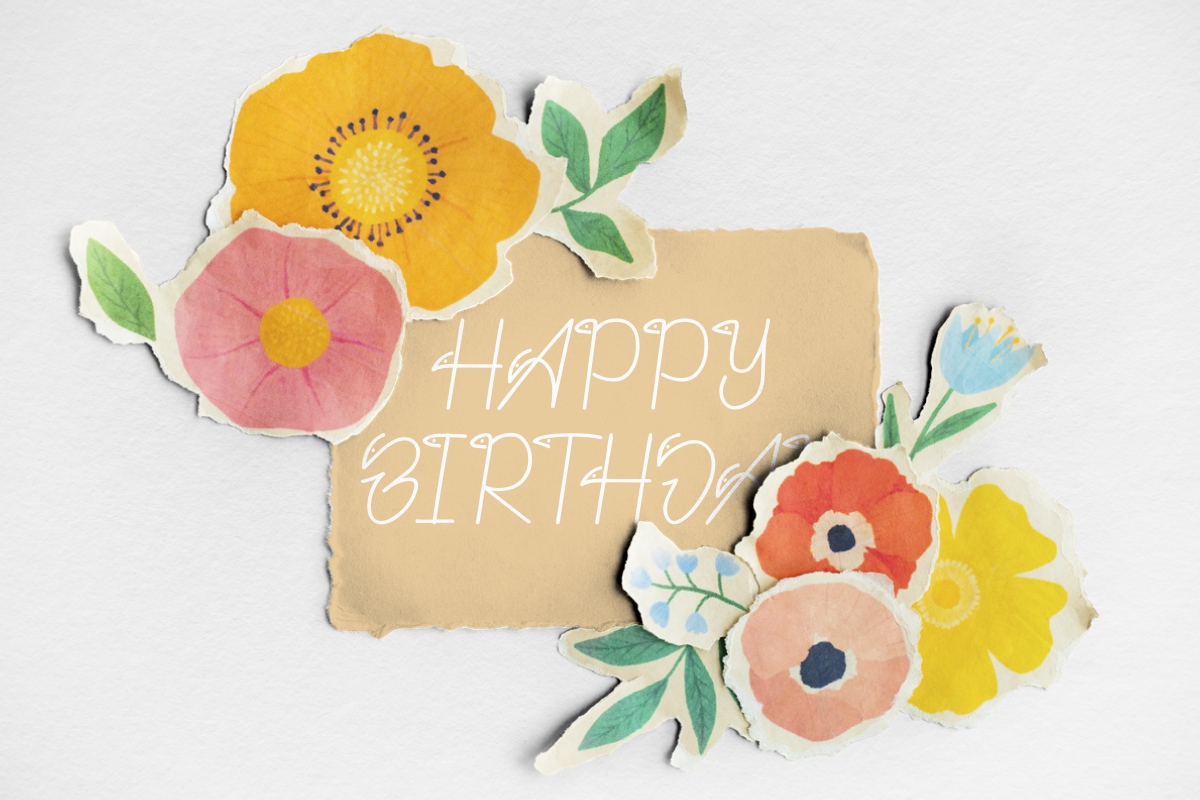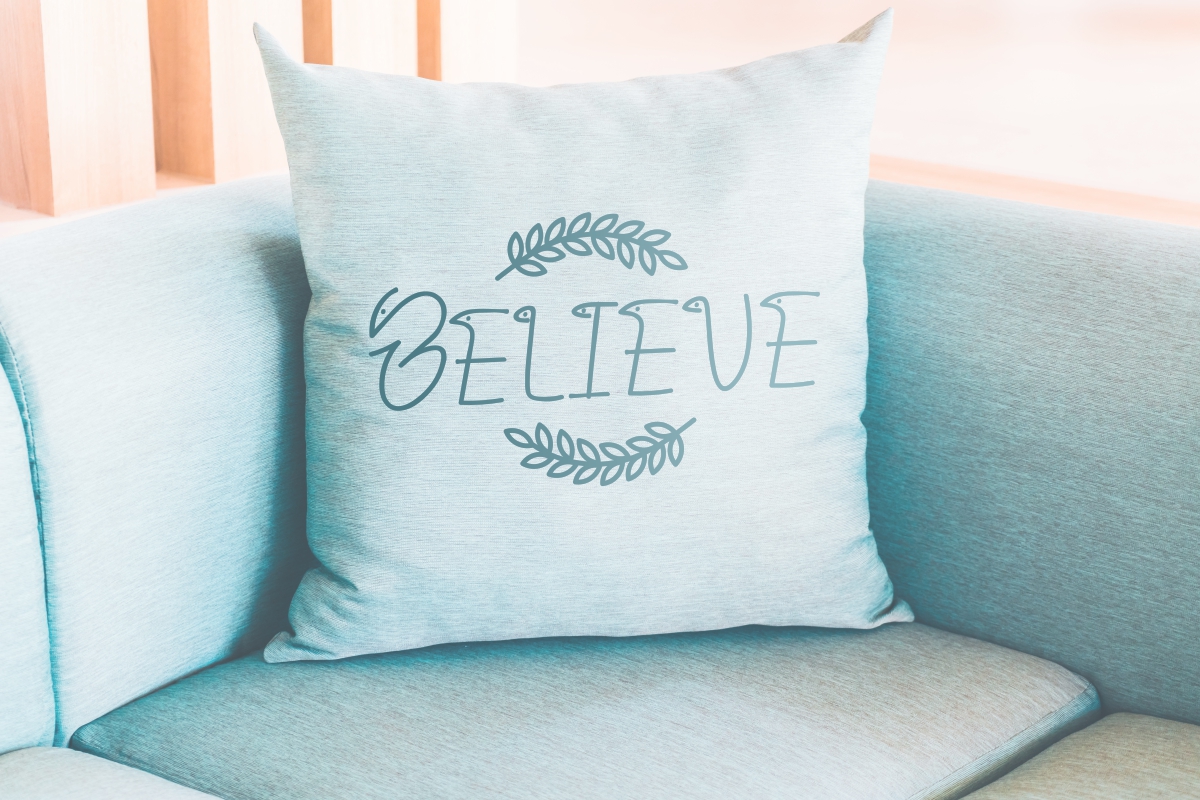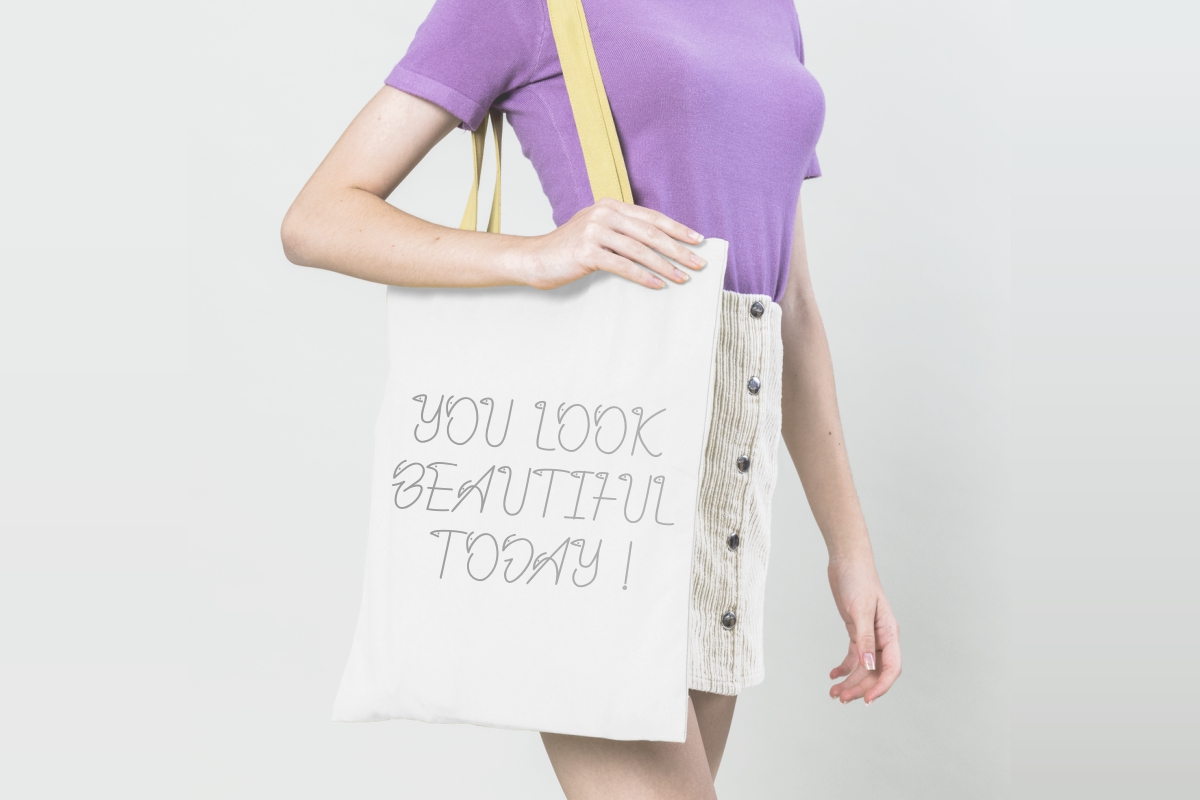
Bunny Goofy Font
Bunny Goofy Display Font
It’s a playful display font with bunny-like shape writing style effect. We made it uniquely with special shapes inspired from kids first handwriting. The font will looks good for many projects : games, children books, products, merchandising, cover, banner, tags, cards etc. It will be great for fun projects, kids theme, school, science project etc